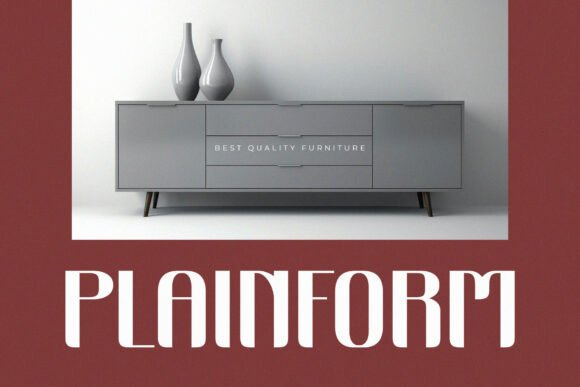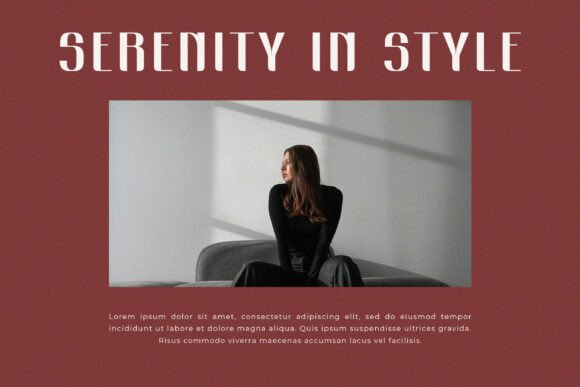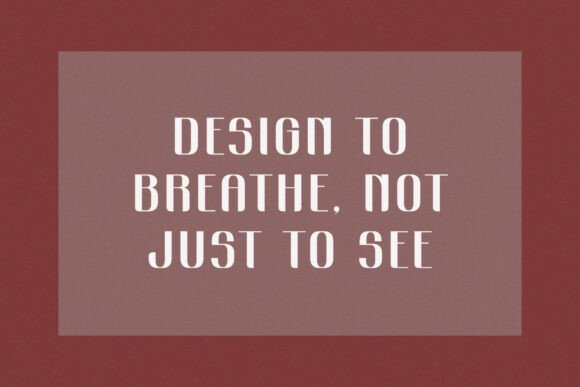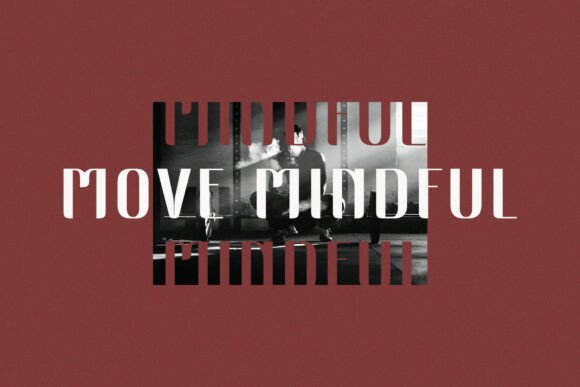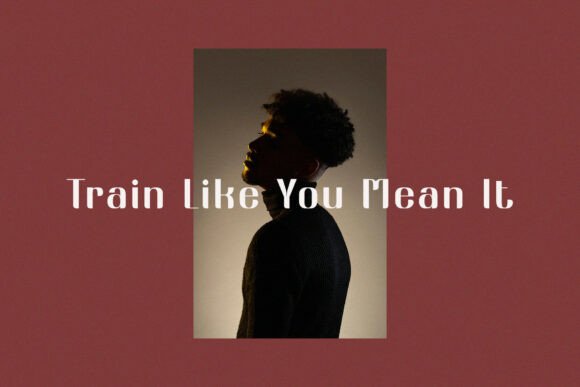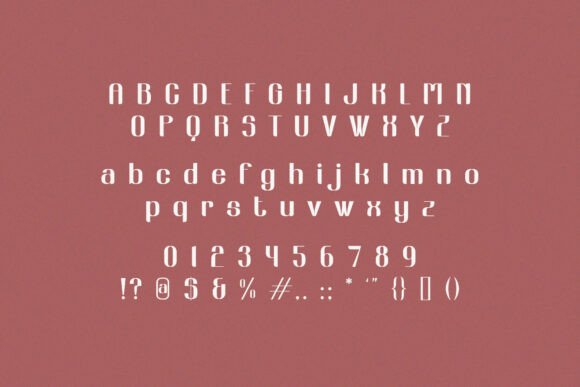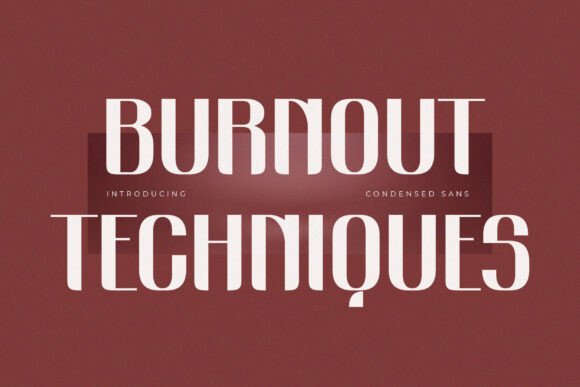
Introducing Burnout Techniques Font: The Perfect Blend of Retro Flair and Modern Elegance
In the world of typography, fonts play a crucial role in conveying the tone and personality of a brand or design. For designers and crafters looking for a unique and stylish font to elevate their projects, Burnout Techniques Font is an excellent choice. This modern condensed sans serif font boasts a distinct retro flair and elegant curves, making it perfect for a wide range of applications.
What Makes Burnout Techniques Font Stand Out?
Burnout Techniques Font is a carefully crafted typeface that combines vintage design principles with a clean, fashionable structure. Its condensed sans serif design gives it a sleek and modern look, while its elegant curves add a touch of sophistication and refinement. The font features both uppercase and lowercase characters, ensuring that it can be used for a variety of design projects.
Key Features of Burnout Techniques Font
- Modern Condensed Sans Serif Design: Burnout Techniques Font features a sleek and modern sans serif design that is perfect for editorial layouts, fashion branding, and more.
- Distinct Retro Flair: The font’s retro flair adds a touch of vintage charm to any design, making it perfect for designers looking to create unique and eye-catching projects.
- Elegant Curves: The font’s elegant curves add a level of sophistication and refinement to any design, making it perfect for high-end branding and editorial projects.
- Uppercase and Lowercase Characters: The font features both uppercase and lowercase characters, ensuring that it can be used for a wide range of design projects.
Burnout Techniques Font is a versatile typeface that can be used for a variety of design projects, including:
- Editorial Layouts: The font’s clean and modern design makes it perfect for editorial layouts, such as magazine articles and blog posts.
- Fashion Branding: The font’s elegant curves and retro flair make it perfect for fashion branding, including logos, packaging, and advertising.
- Logos: The font’s unique and stylish design makes it perfect for logos and branding projects.
- Social Media Graphics: The font’s modern and sleek design makes it perfect for social media graphics, including Facebook posts, Instagram stories, and more.
- Posters: The font’s bold and eye-catching design makes it perfect for posters and other large-format designs.
Why Choose Burnout Techniques Font?
With so many fonts to choose from, why should designers and crafters choose Burnout Techniques Font? Here are just a few reasons:
- Unique and Stylish Design: Burnout Techniques Font features a unique and stylish design that will elevate any project.
- Versatile: The font can be used for a wide range of design projects, from editorial layouts to fashion branding.
- Elegant and Refined: The font’s elegant curves and refined design make it perfect for high-end branding and editorial projects.
In conclusion, Burnout Techniques Font is a modern condensed sans serif font with a distinct retro flair and elegant curves. Its unique and stylish design makes it perfect for a wide range of design projects, from editorial layouts to fashion branding. With its versatility, elegance, and refined design, Burnout Techniques Font is an excellent choice for designers and crafters looking to elevate their projects.